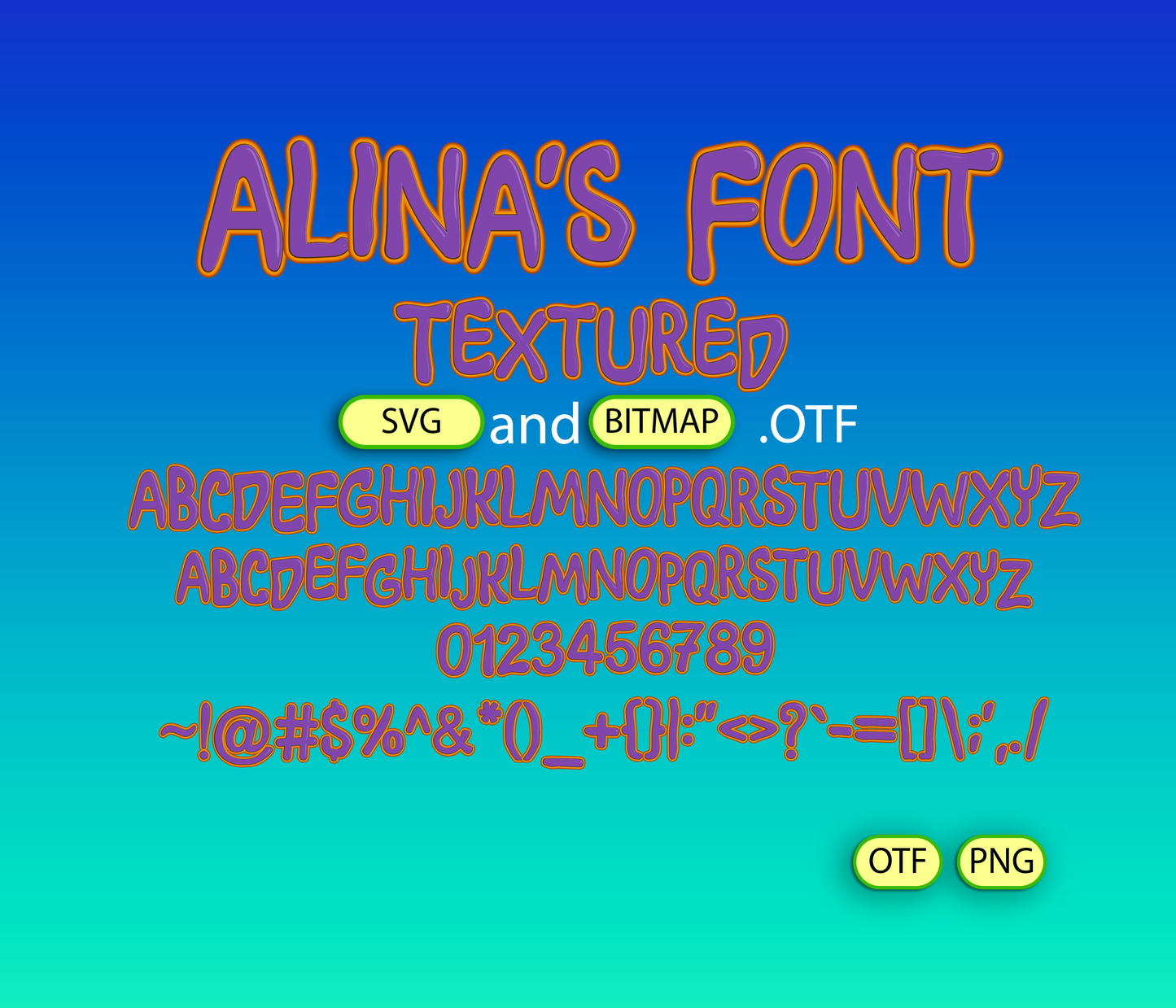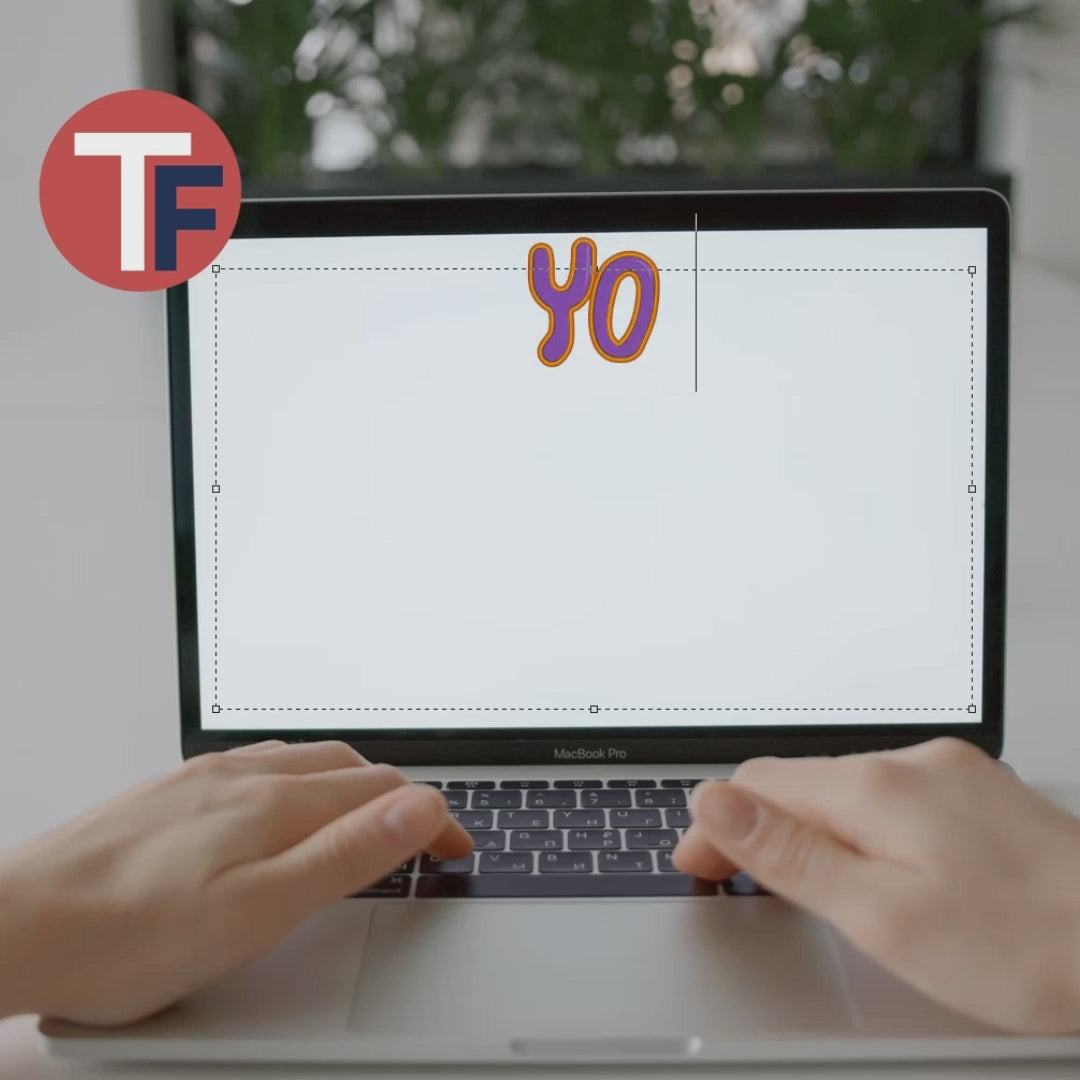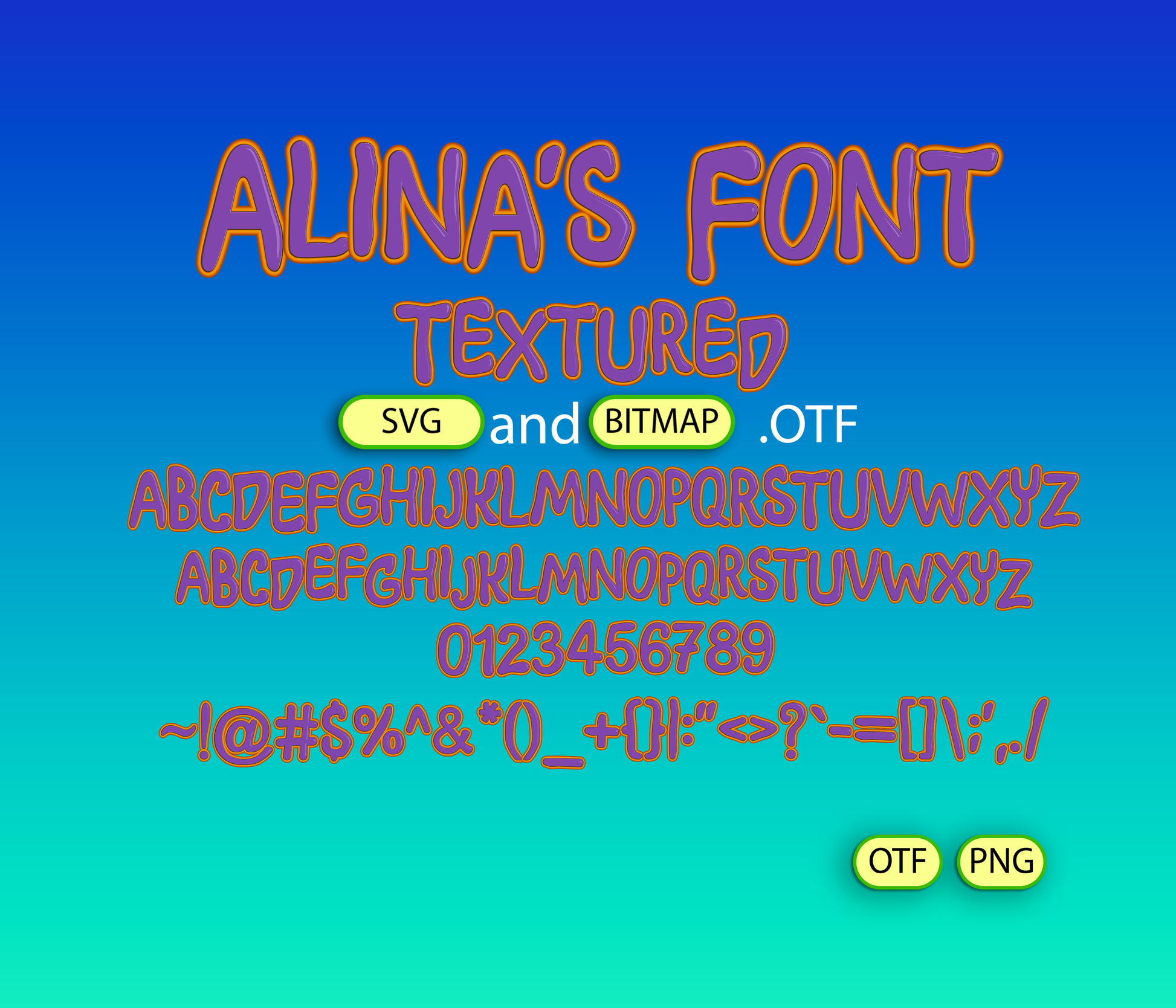
Adventure and Fun of the Mystery Squad Font Textured
Adventure and Fun of the Mystery Squad Font
Enter the world of the Mystery Squad, a beloved franchise known for its blend of mystery, humor, and lovable characters. Our Mystery Squad-inspired font captures the essence of this iconic series, reflecting the adventurous spirit of Scooby and his friends as they solve mysteries. Each character in the font evokes the whimsical and friendly atmosphere of the show, making it perfect for projects aiming to bring the charm and excitement of the Mystery Squad to life.
What Font is the Mystery Squad Font?
Picture a typeface that encapsulates the playful, adventurous, and slightly spooky spirit of the Mystery Squad series. Our Mystery Squad font mirrors the show's dynamic and animated style, with bold, readable letterforms capturing the essence of this timeless cartoon. The font includes an extensive character set, featuring alphabets, numbers, and special symbols, offering a comprehensive toolkit for various design projects, from themed party invitations to creative merchandise.
What Can You Do With the Mystery Squad Font?
The Mystery Squad font is versatile and ideal for a range of creative and entertaining applications:
- Themed Event Invitations: Create engaging invitations for Mystery Squad-themed parties or events.
- Children's Merchandise Design: Ideal for designing apparel, toys, and accessories appealing to young fans.
- Digital Content and Social Media: Add a playful and nostalgic touch to websites, blogs, and social media posts.
- Educational Materials: Incorporate the font into teaching resources to engage children with fun, familiar characters.
- Greeting Cards and Stationery: Design personalized stationery, greeting cards, or gift tags with a Mystery Squad theme.
- Promotional Materials: Use in marketing and advertising materials for family-oriented products or events.
- Interior Decor: Create wall art, decals, or signage for children's rooms, play areas, or themed events.
- Creative Art and DIY Projects: Perfect for crafting, scrapbooking, and artistic projects inspired by the Mystery Squad series.
- Merchandise and Apparel: Design unique Mystery Squad-themed clothing, bags, and accessories for fans of all ages.
- Event Signage: Develop eye-catching signs and banners for themed events, screenings, or promotions.
The Mystery Squad font is more than just a typeface; it's an invitation to the fun-filled and mysterious world of the Mystery Squad and friends.